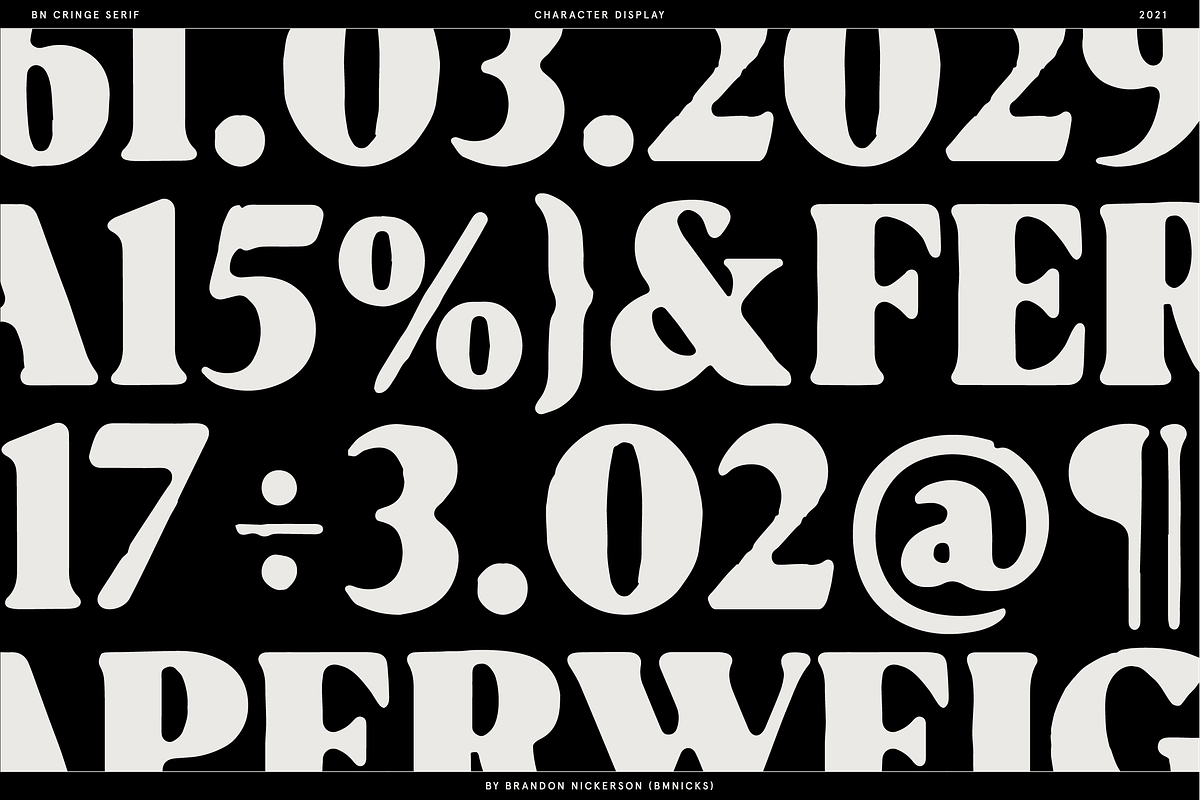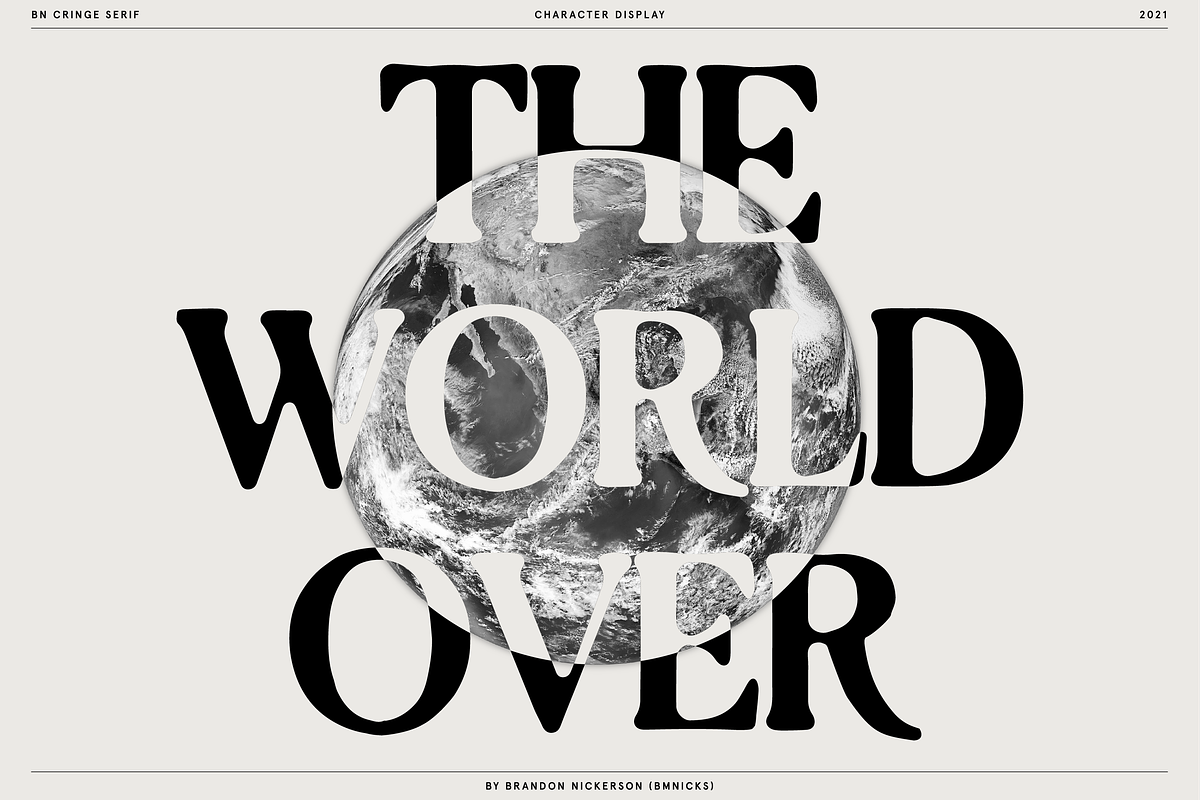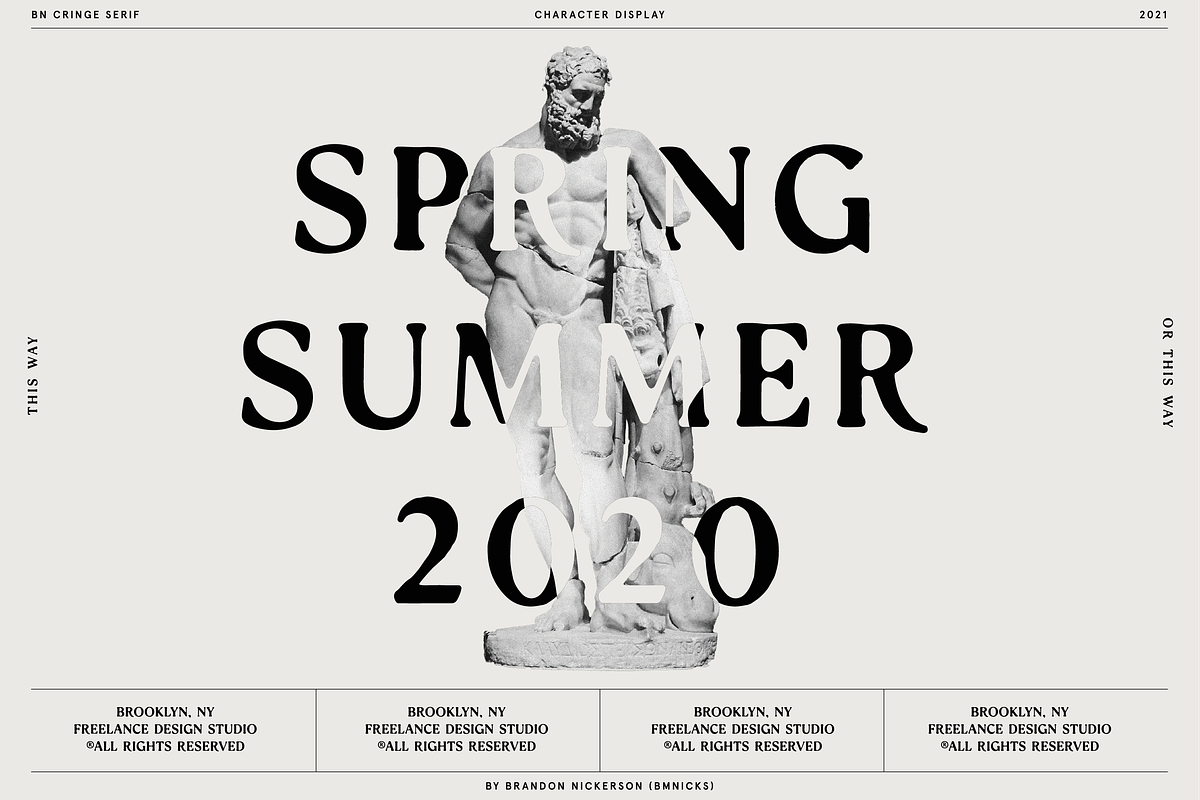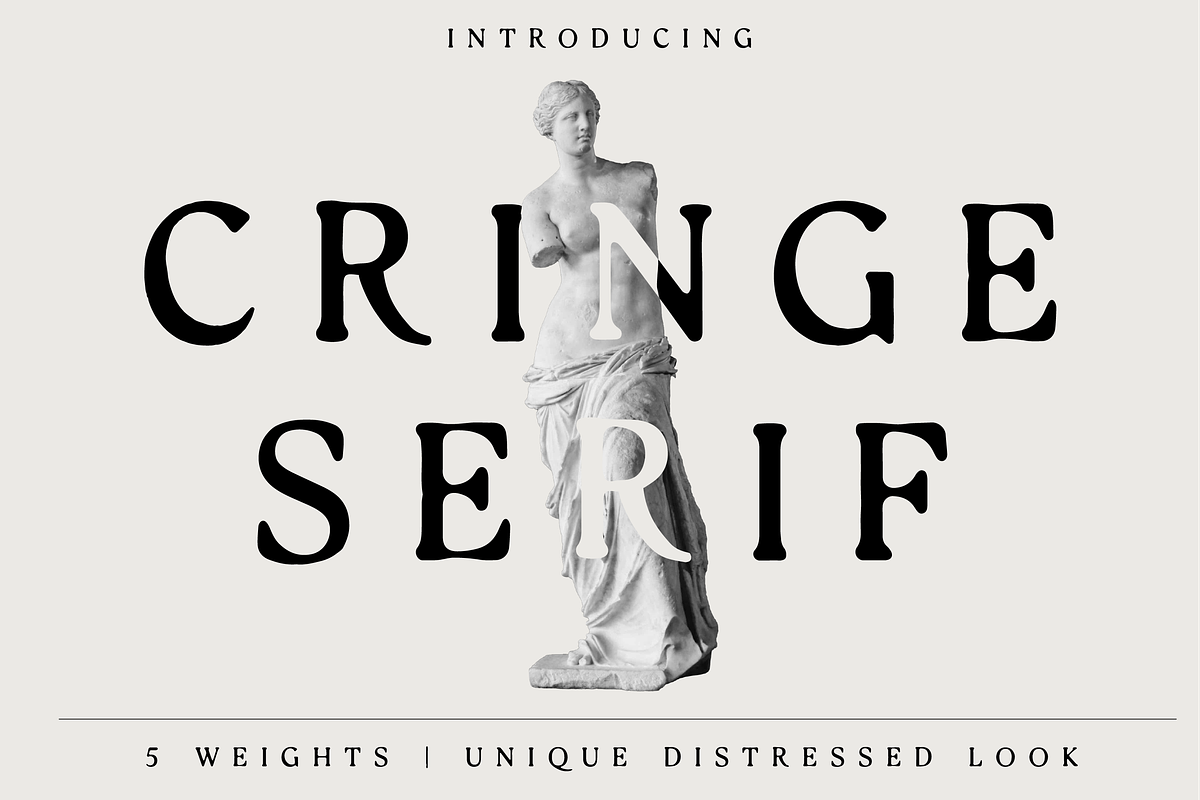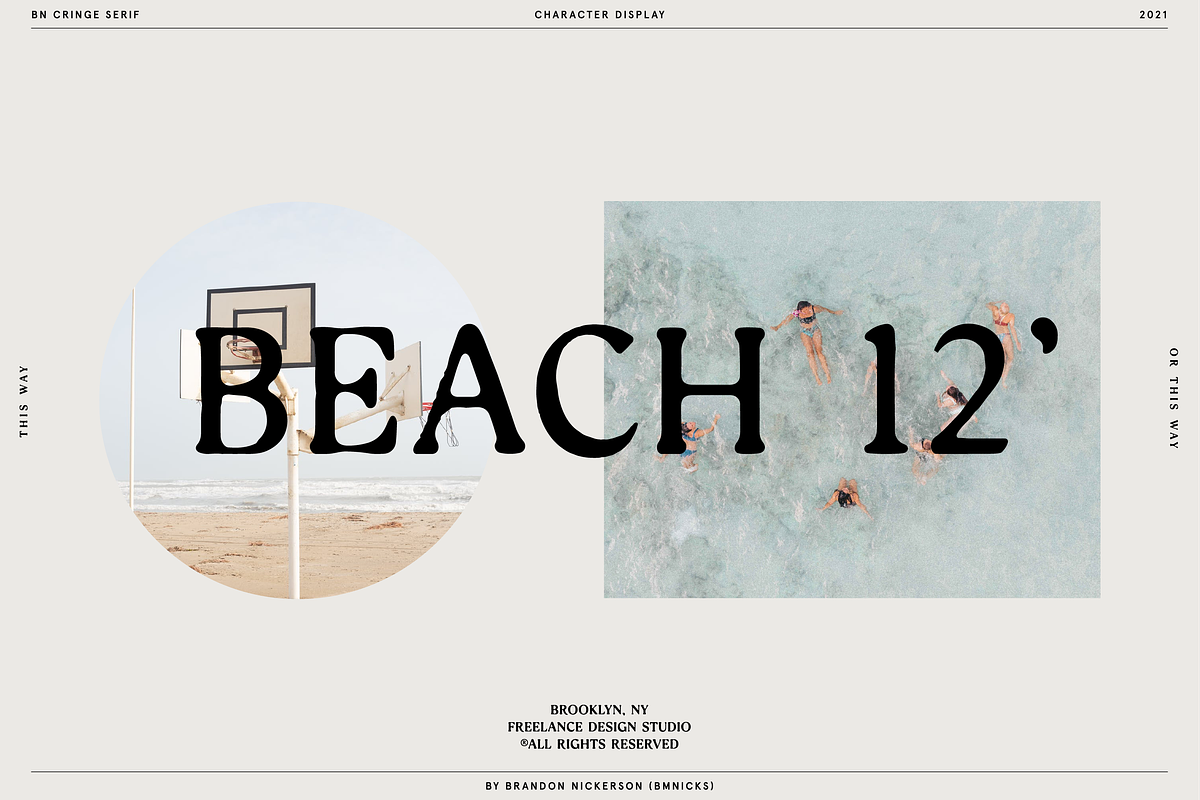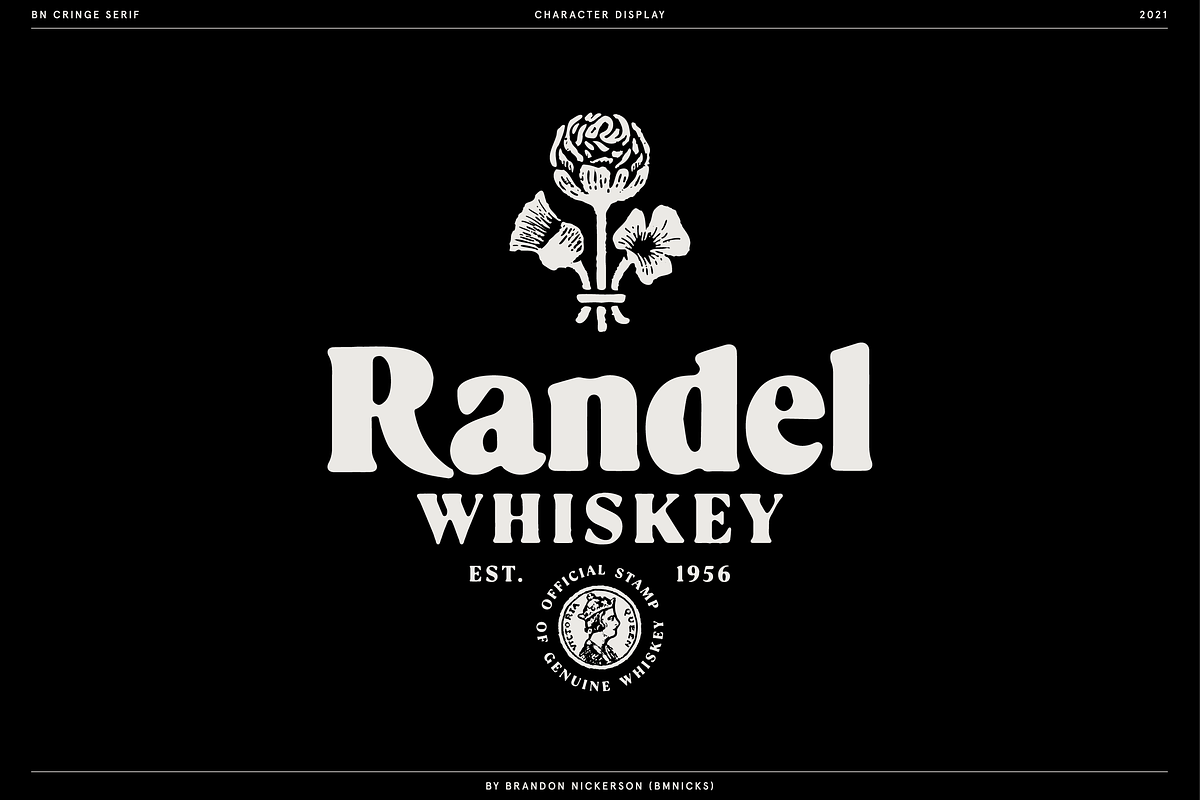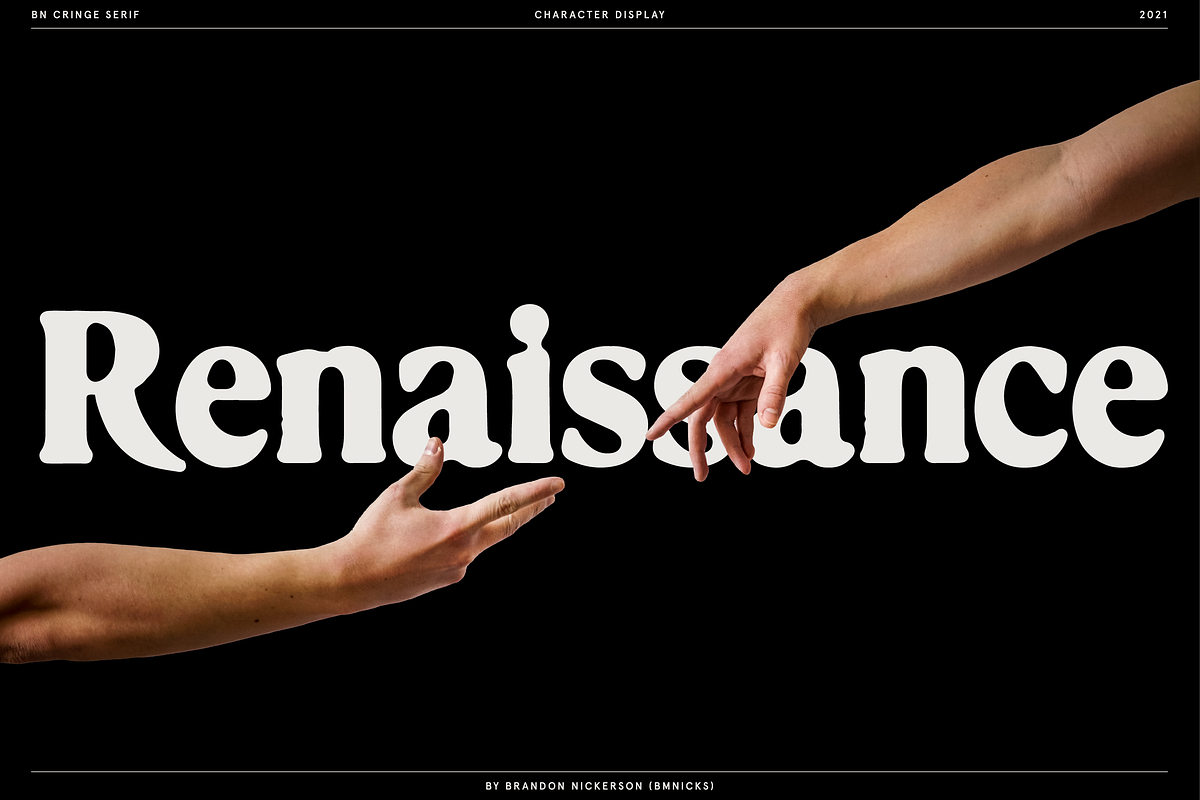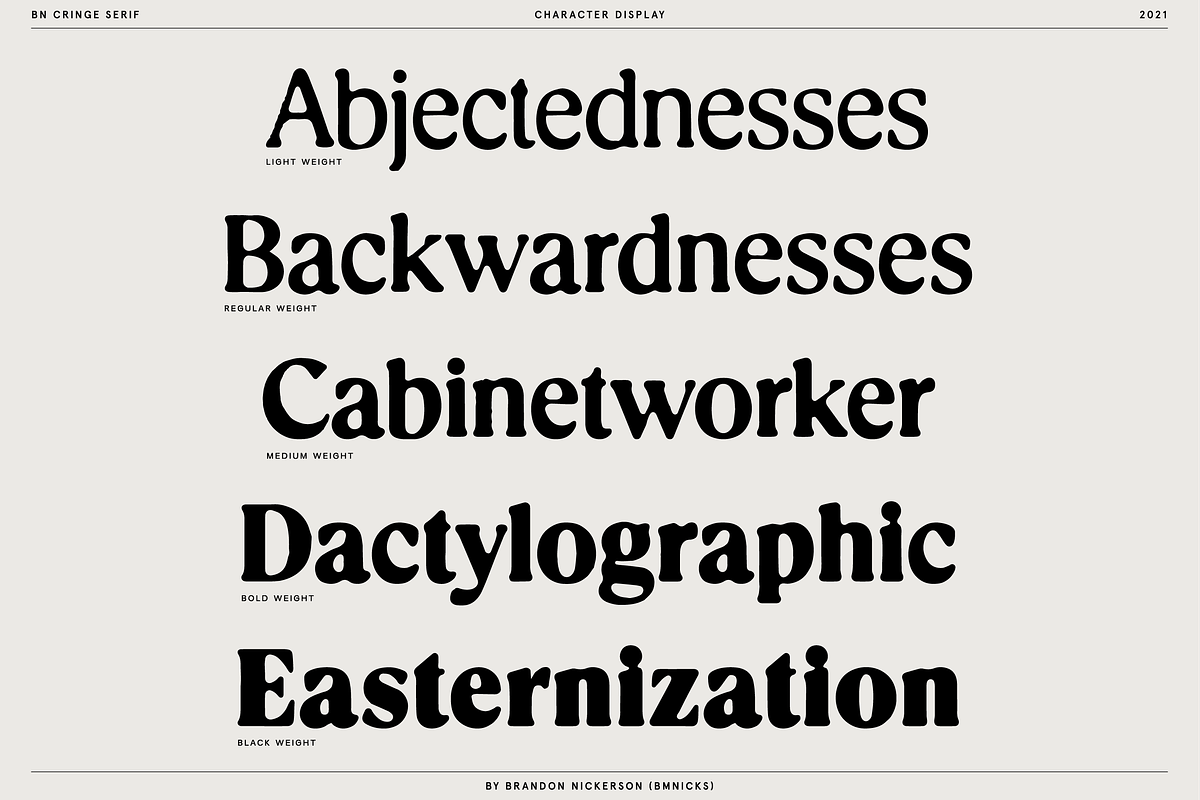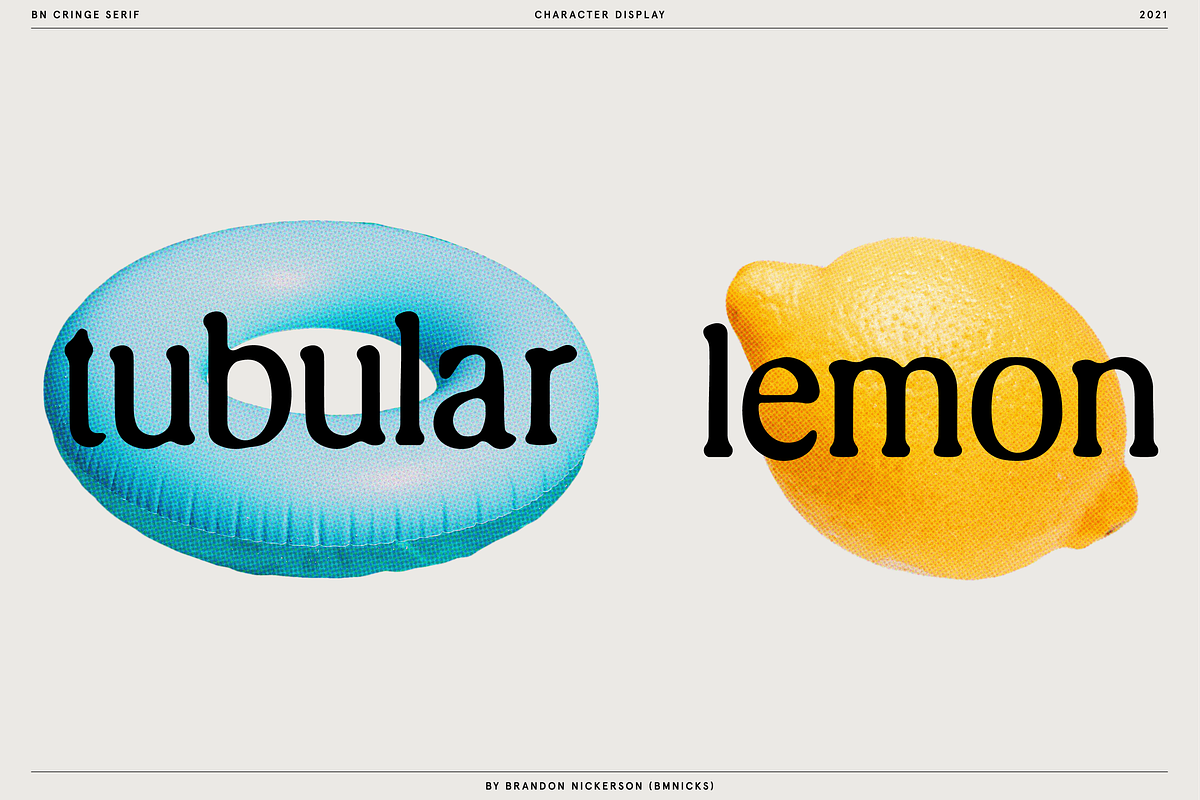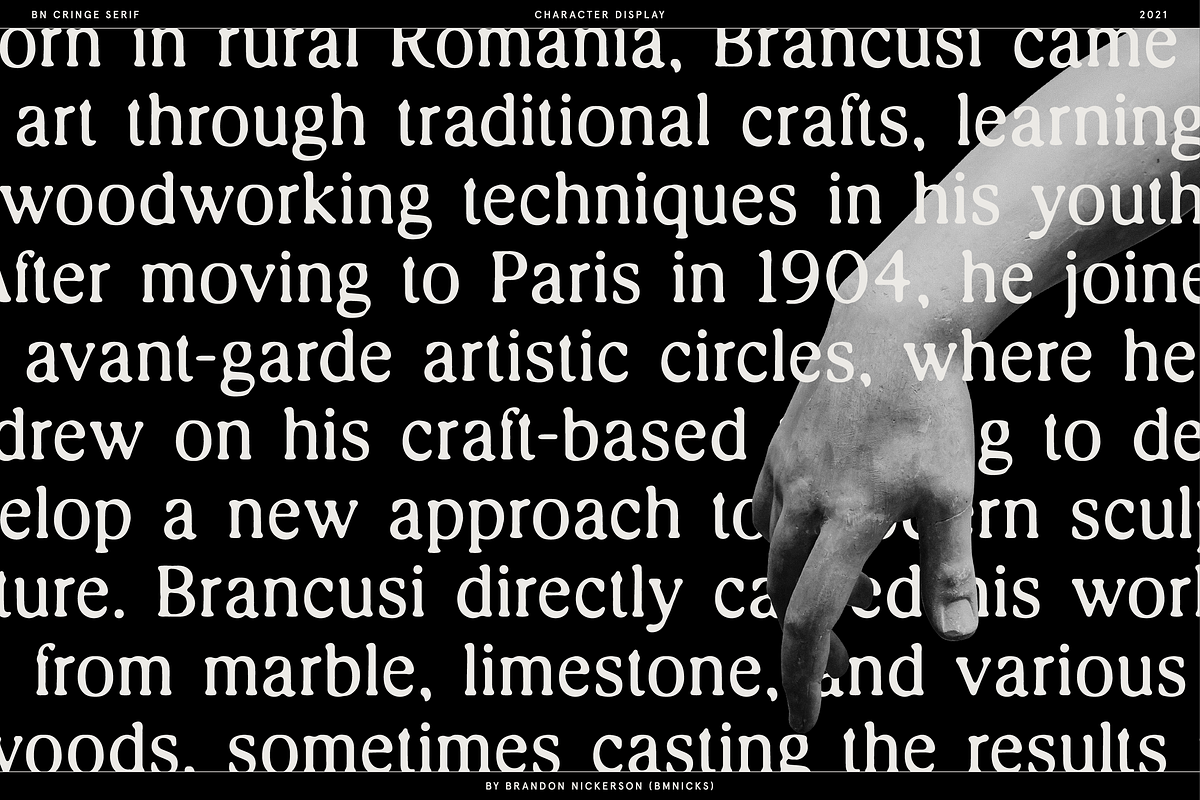
Cringe Serif
Introducing BN Cringe Serif.
A distressed typeface designed for legibility and to give your design a unique look. Cringe Serif comes with 5 weights, each weight (and character) has been meticulously crafted giving each character unique attributes.